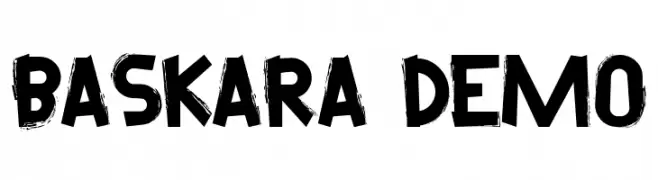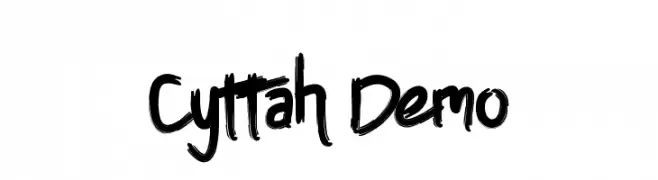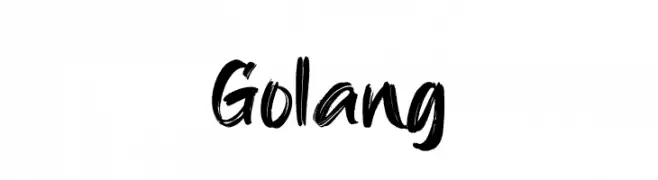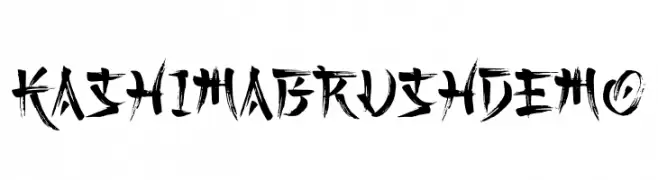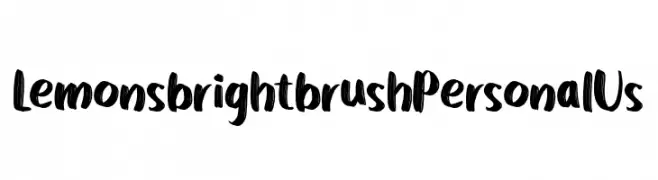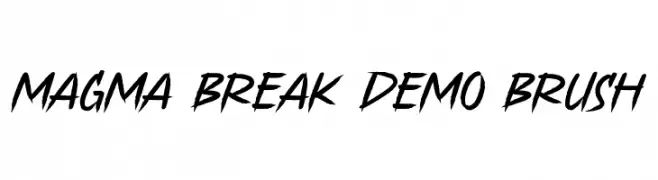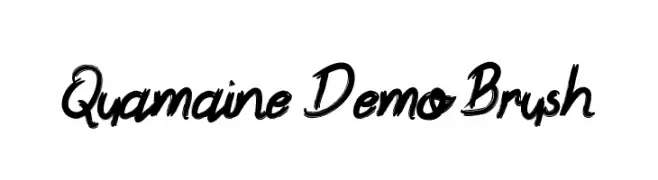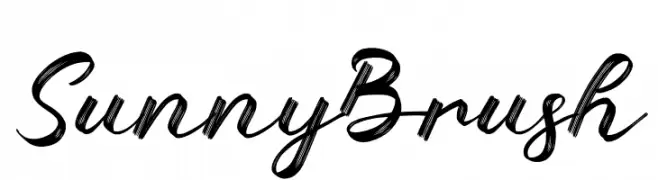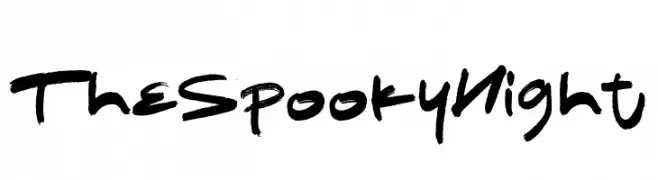
• Golang
A bold, brush-style font with a hand-painted, dynamic appearance.
• Magma Break Demo Brush
A dynamic brush-style font with sharp, angular strokes and a hand-painted look.
• Baskara Demo
A bold, textured brush font with a dynamic, hand-painted style.
• Cyttah Demo
A bold, brush-style font with dynamic, hand-painted strokes.
• GonlotusFangwellDemo Dry Brush
A dynamic dry brush font with an artistic, hand-painted style.
• Quamaine Demo Brush
A bold, brush script font with dynamic, hand-painted strokes.
• The Spooky Night
A bold, brush-style font with dynamic, hand-painted strokes.
• Sunny Brush
A lively brush script font with bold, dynamic strokes and a hand-painted feel.
• LemonsbrightbrushPersonalUs
A bold, brush-style font with a hand-painted, energetic appearance.
• Kashima Brush Demo
A dynamic brush-style font with bold, sweeping strokes and an artistic, hand-painted feel.